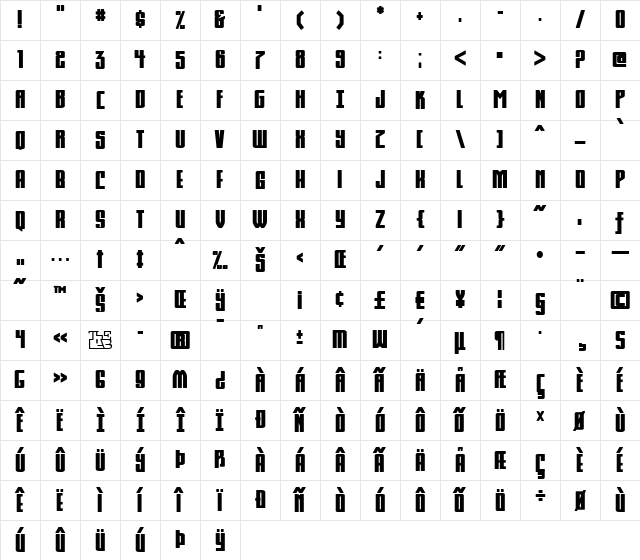
Complete Komikahuna Regular glyph index. Displaying only characters natively supported by Komikahuna Regular font.
Komikahuna is a composed and adaptable typeface that performs quietly and consistently across a wide range of design contexts.